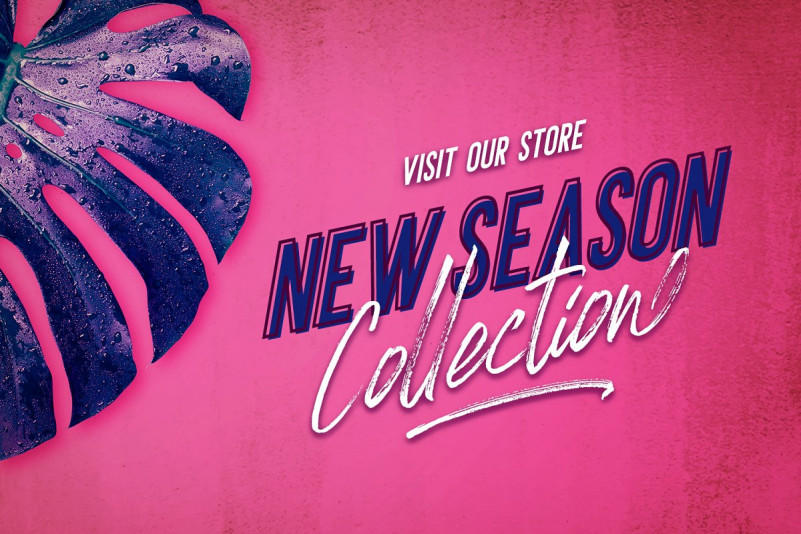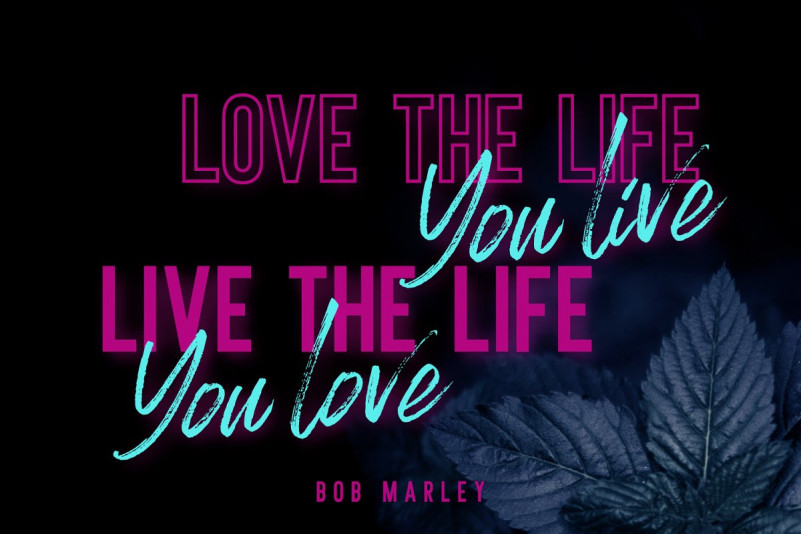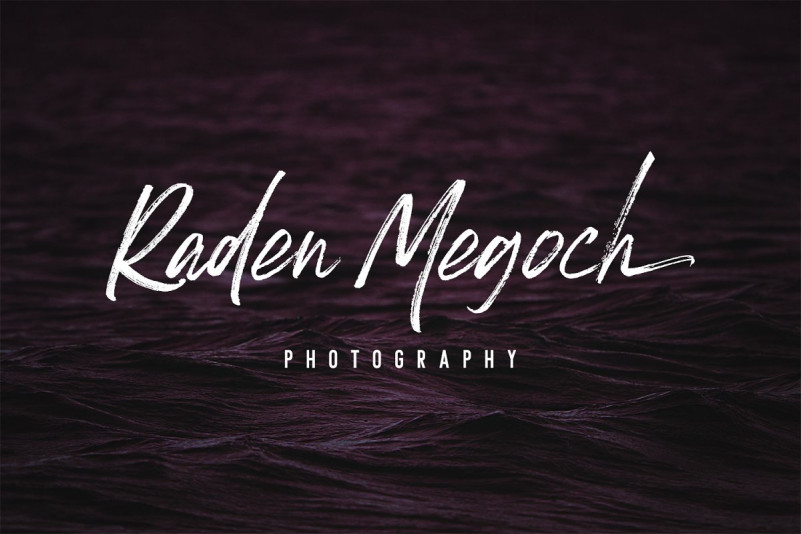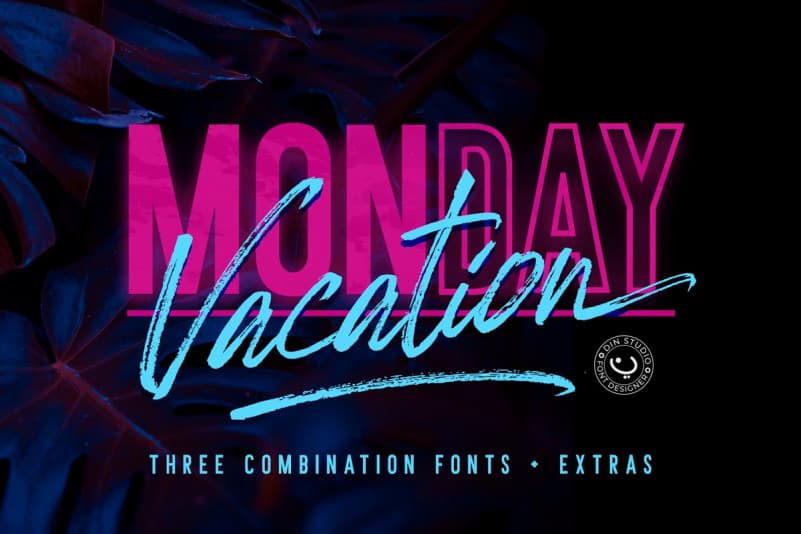
Monday Vacation Font Duo
This is modern paired font duo , sans serif and script font, designed and shared by Din Studio. Introducing Monday Vacation. Monday Vacation is a brush font and combines with sans font (Solid +outline). Made with naturally brush. The texture from the brush font will make your design more beautiful and powerful. This font is suitable for any design like branding, quotes, t-shirt printing and etc.